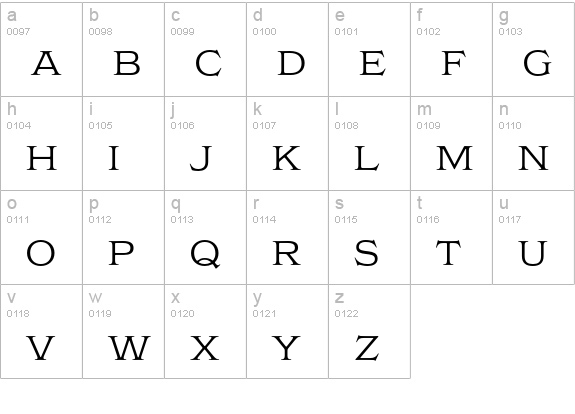
Griffon Extra Light is a refined, elegant variant in the Griffon typeface family \xE2\x80\x94 well suited to elegant body text, refined sub-headings, and luxury branding.